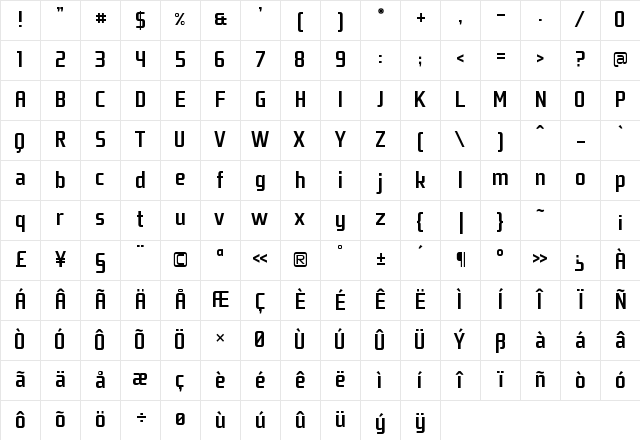
Fragma Medium
Fragma Family
Complete Fragma Medium glyph index. Displaying only characters natively supported by Fragma Medium font.
Design Context for Fragma
Fragma is a composed and adaptable typeface that performs quietly and consistently across a wide range of design contexts.